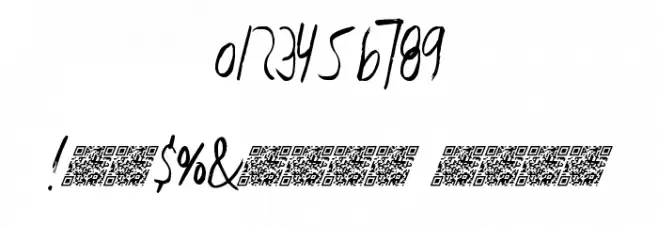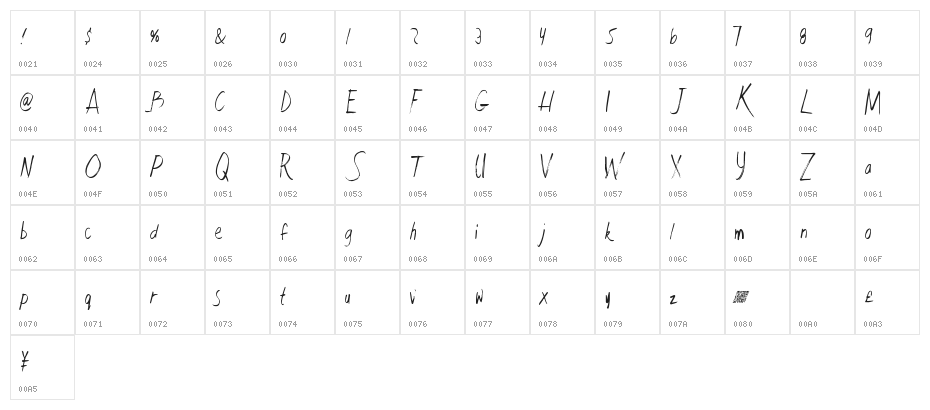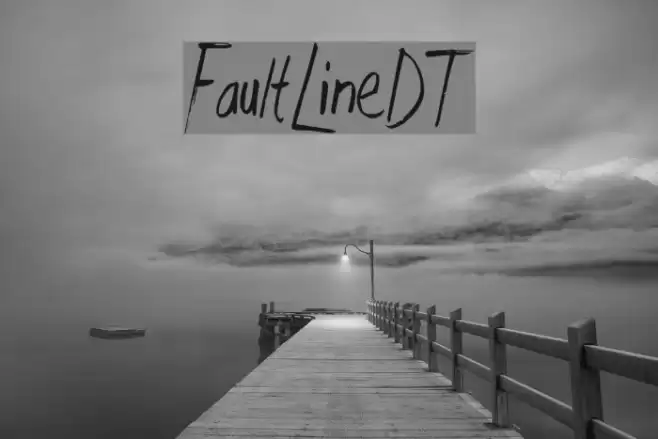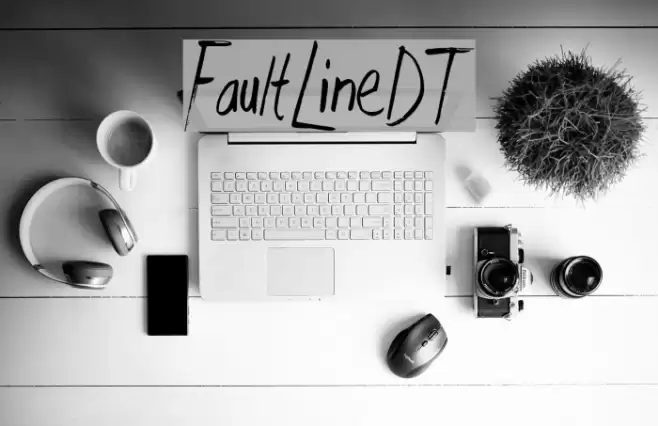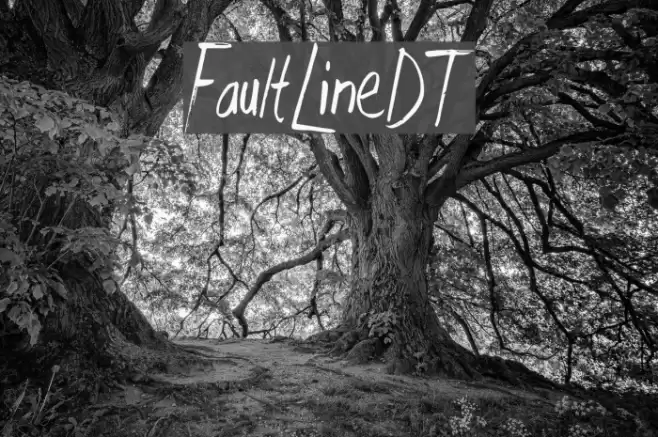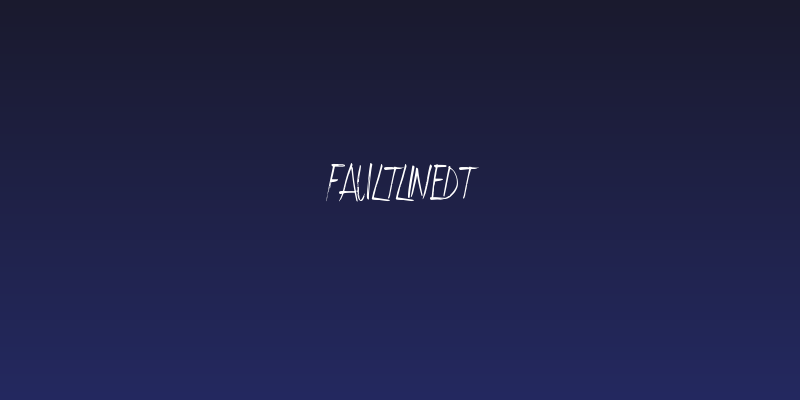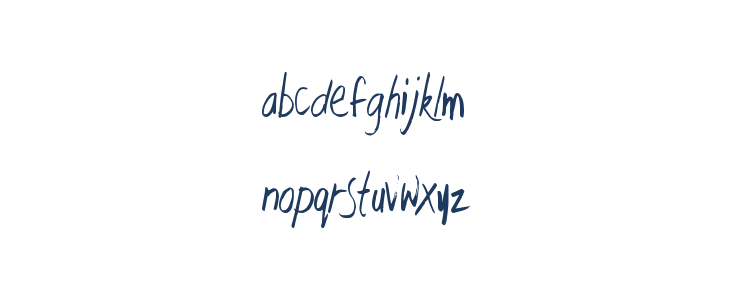
FaultLineDT Font
FaultLineDT Description
This font exhibits a dynamic and edgy style, characterized by its irregular, jagged strokes and a sense of movement. The uppercase letters are tall and narrow, with varying stroke widths that create a sense of energy and unpredictability. The lowercase letters maintain this dynamic feel, with some letters appearing slightly slanted or distorted, adding to the overall chaotic aesthetic. The numbers follow the same style, with uneven lines and a hand-drawn appearance. Special characters are included, maintaining the same energetic and rough style. This font is ideal for projects that require a bold, unconventional look.
| Overall Style | Modern, Edgy |
| Use Case | Headlines, Logos, Artistic projects |
| Proposed Projects | Album covers, posters, graffiti art, edgy branding, and creative advertising. |